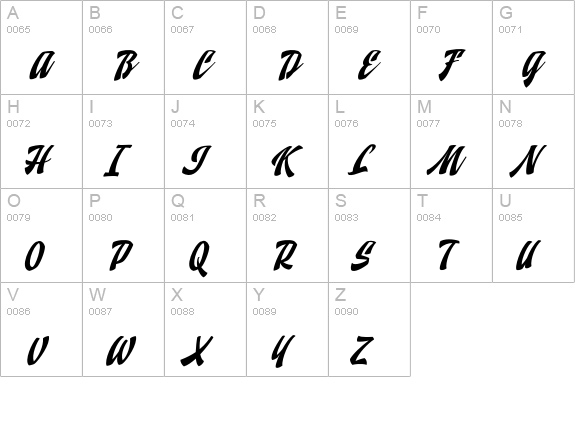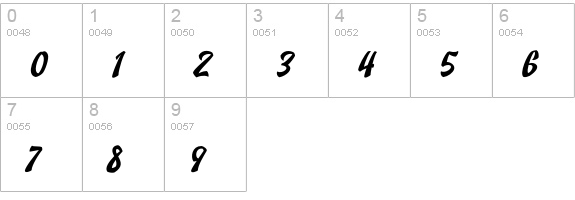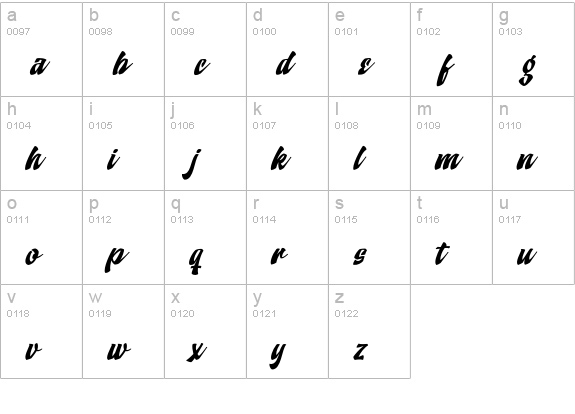
Doedel Alternate 1 Multiple font is a versatile and stylish typeface that brings a unique touch to any design project. With its eye-catching alternate characters and modern appeal, this font is perfect for creating standout headlines, logos, posters, and more. The elegant curves and sharp edges of Doedel Alternate 1 Multiple font add a touch of sophistication and creativity to your work. Best of all, Doedel Alternate 1 Multiple font is available for free download at FontsMarket.com. Whether you're a professional designer looking for a fresh new font or a hobbyist seeking to add some flair to your projects, this font is sure to impress. Don't miss out on this fantastic opportunity to enhance your designs with the stunning Doedel Alternate 1 Multiple font. Download it now and let your creativity shine!